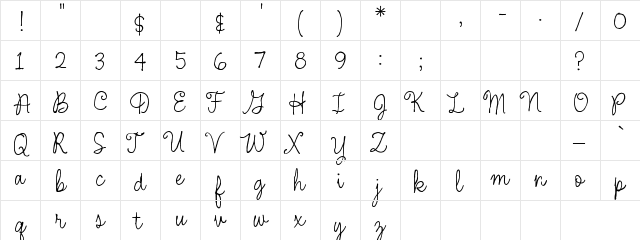
AmberScriptOnePKA Regular
Design Context for AmberScriptOnePKA Typeface
AmberScriptOnePKA flows with the natural rhythm of handwritten lettering, making it ideal for designs that call for warmth and personal expression.
Font Pairing: Combine AmberScriptOnePKA with a simple geometric sans for maximum contrast — the tension between flowing curves and clean structure is a classic typographic pairing.
Pro Tip: Use AmberScriptOnePKA for short runs of text — names, titles, or taglines. Extended body copy in script faces tires the eye quickly.